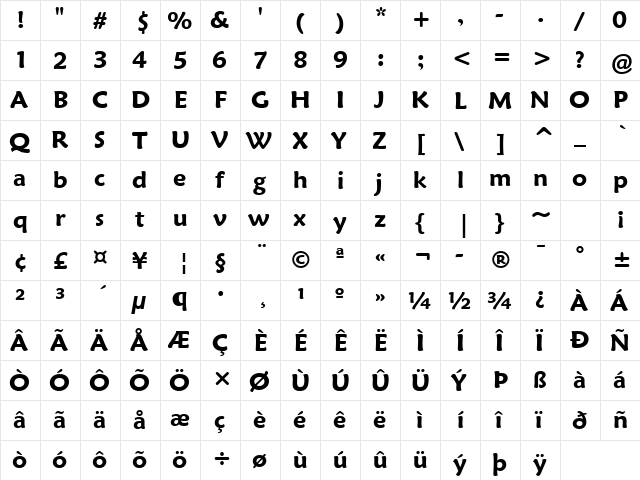
Maiandra DmBd GD Roman Font Preview
Maiandra DmBd GD Roman
Maiandra DmBd GD Roman Font Details
Design Context for Maiandra DmBd GD Typeface
Maiandra DmBd GD offers clean, dependable letterforms without strong stylistic allegiance, making it a practical choice for designers who need flexibility.
Pro Tip: Pair Maiandra DmBd GD with a font of contrasting weight or personality to build a more expressive typographic hierarchy.